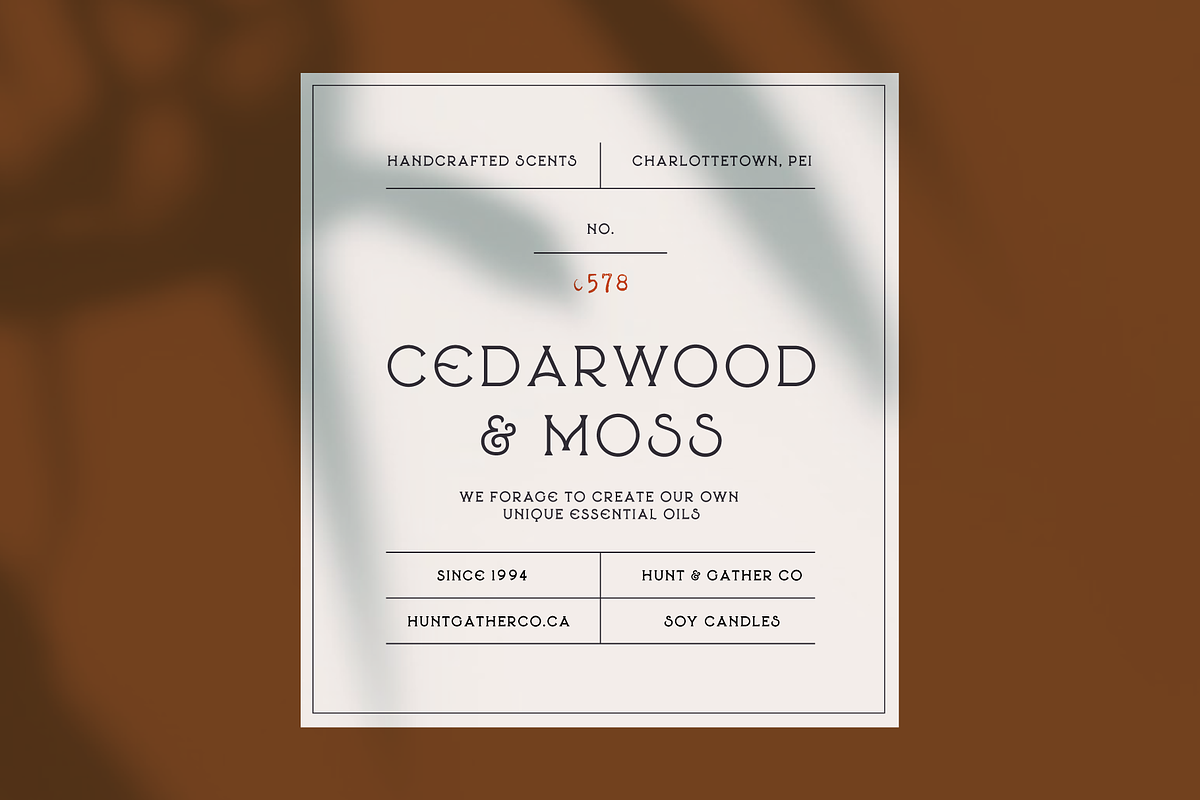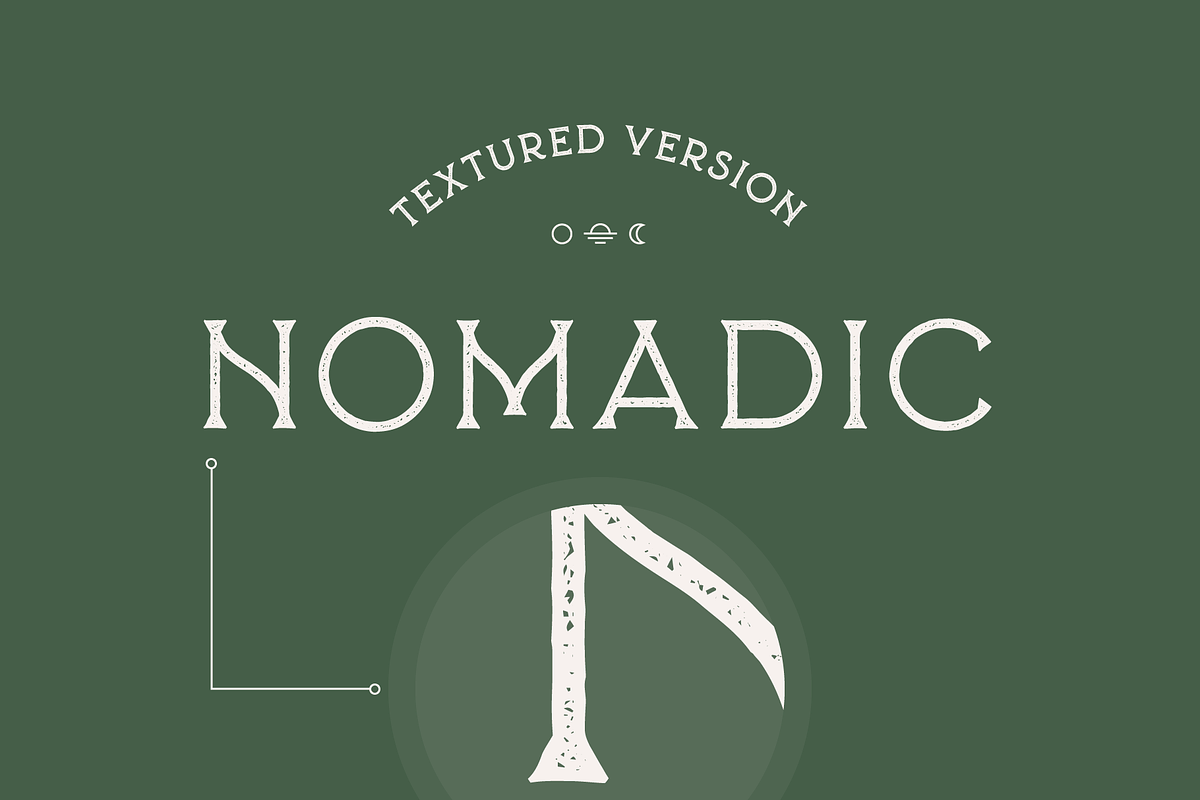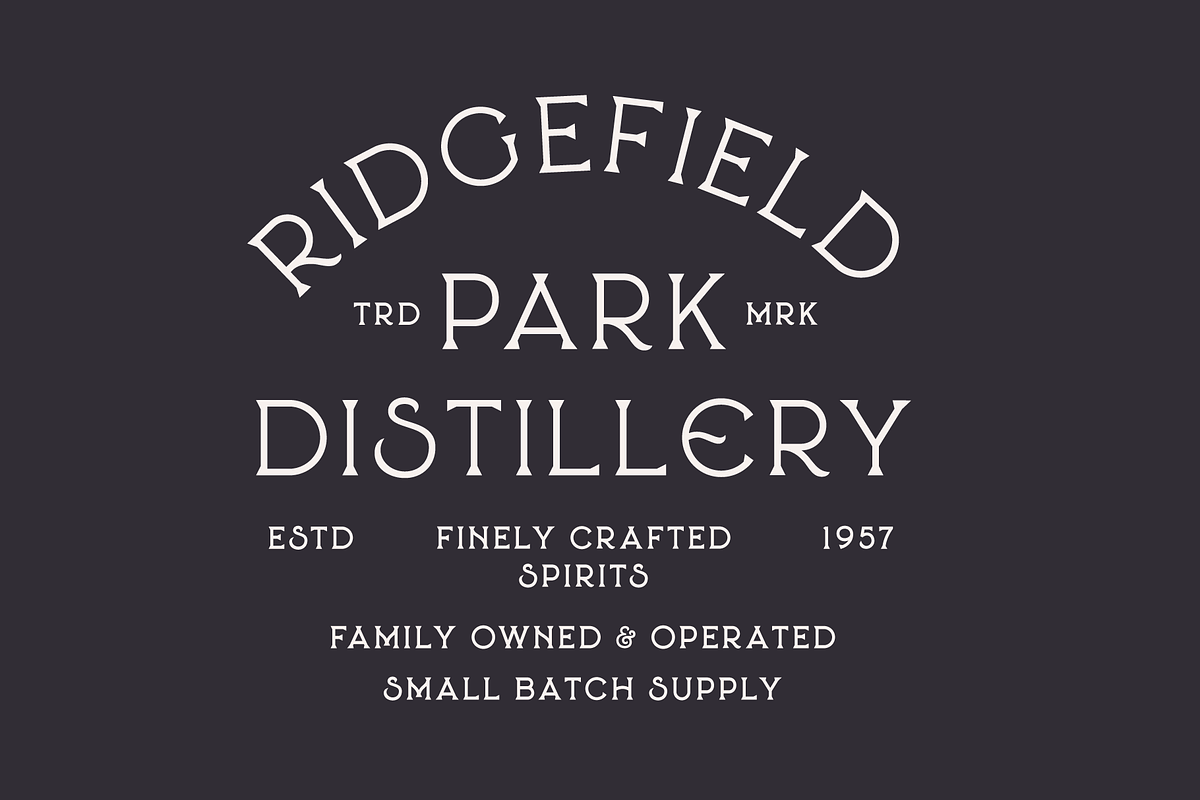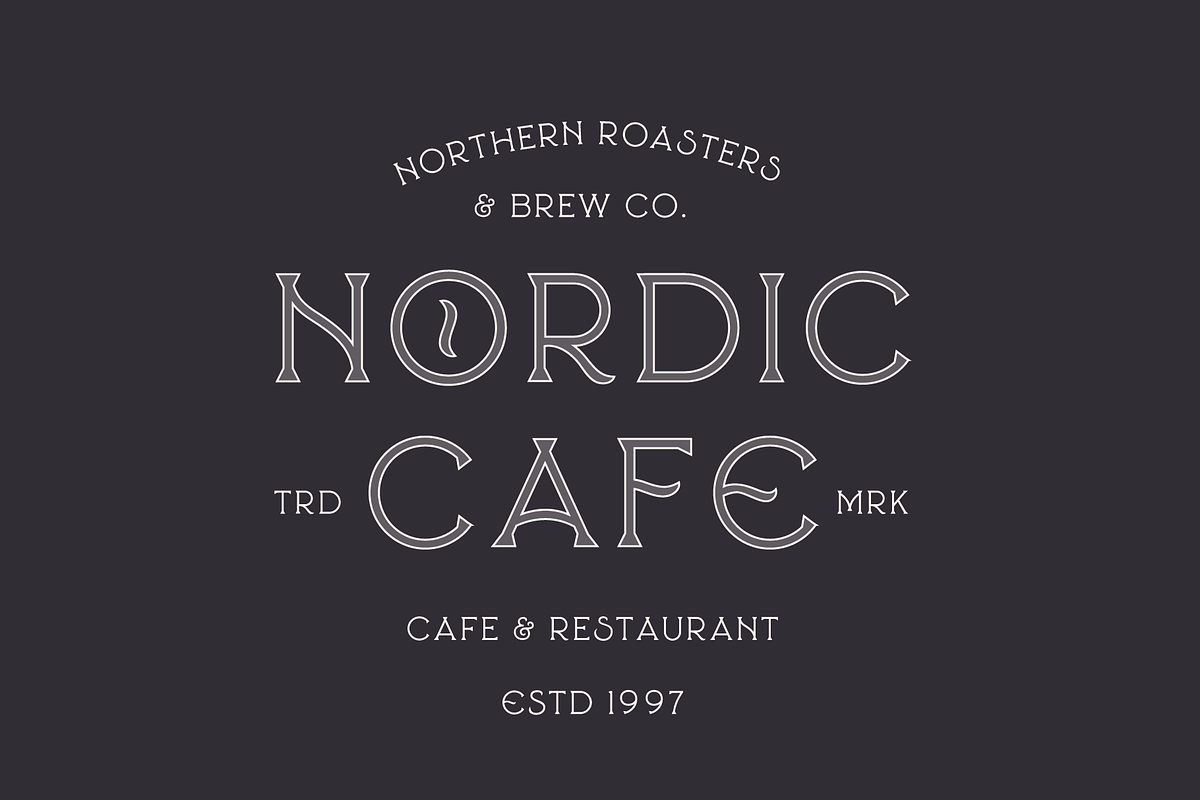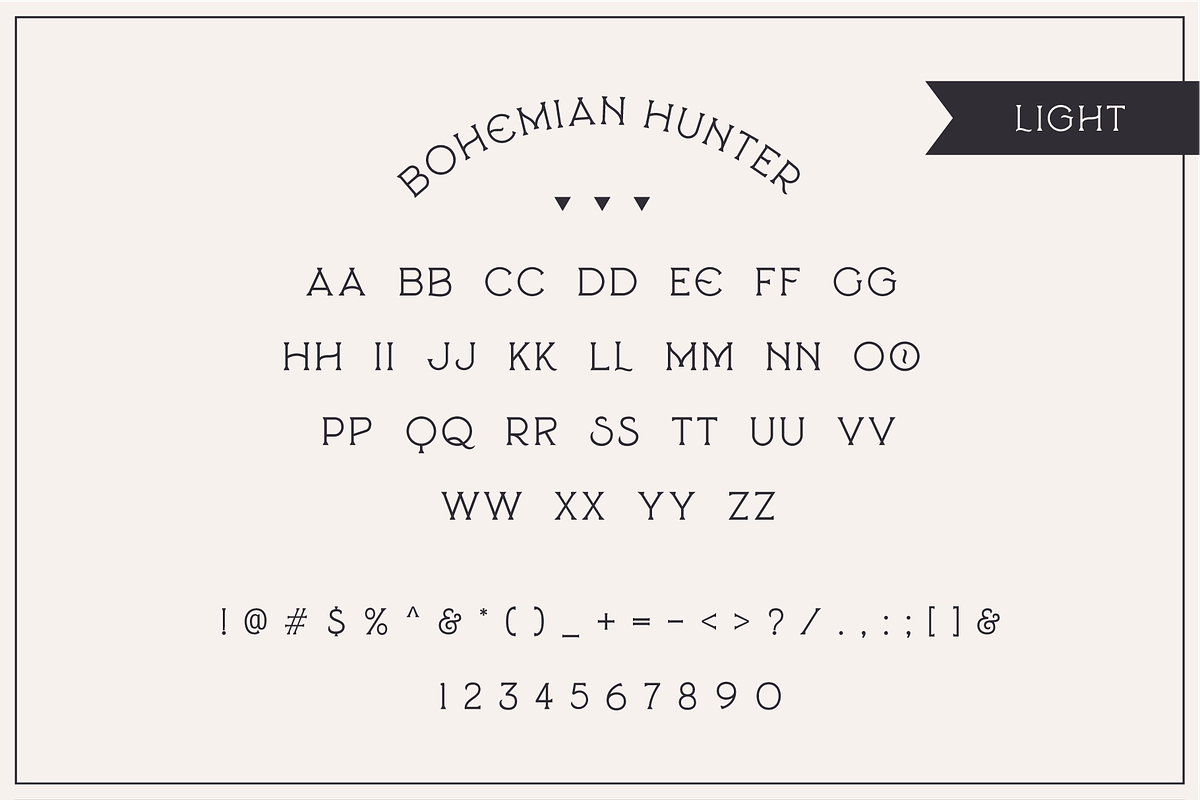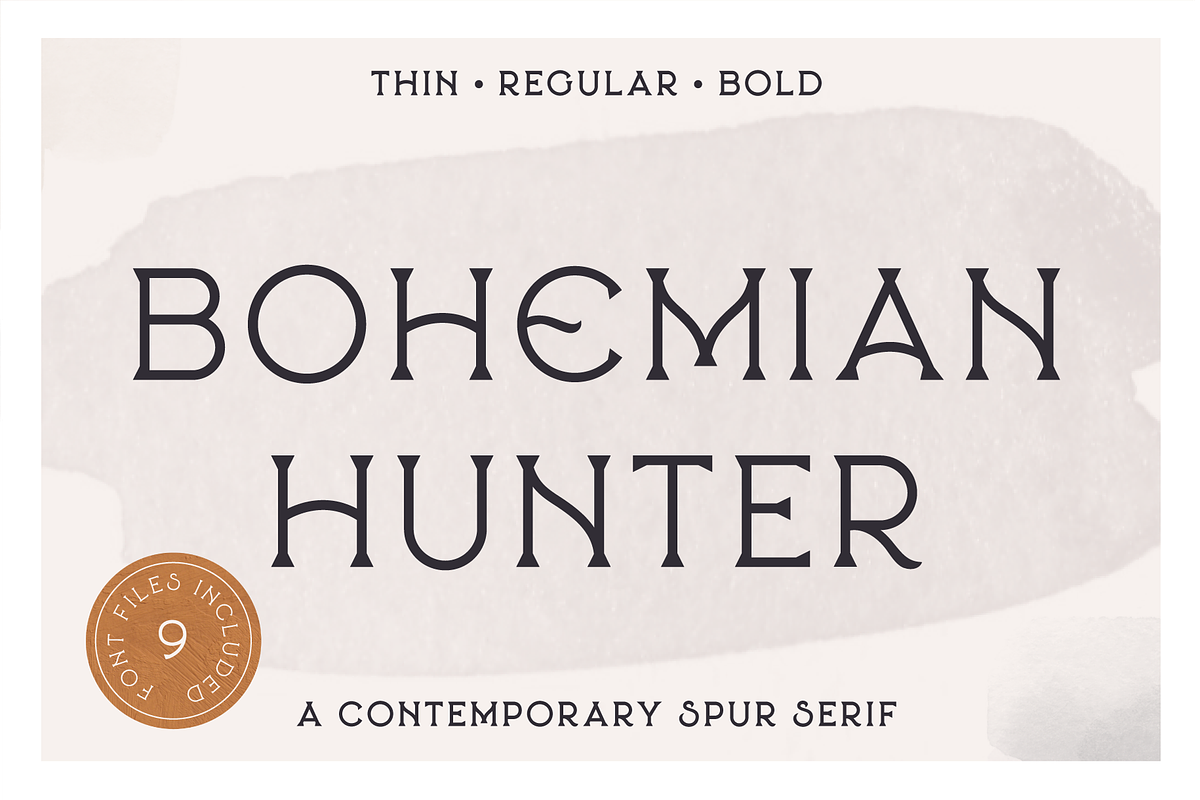
Bohemian Hunter
Bohemian Hunter is an All-Caps contemporary display / spur serif typeface. It comes packed with 9 different font files including 3 weights.
- Light, Regular, Bold
- Clean, Rough, Stamp Versions
Absolutely love this font, though I do wish the O with the squiggle was the capitalized version rather than the lowercase. I use it for my website and if something doesn't load properly I don't want people seeing my text lOOking like this, so I have my site set to all caps, losing a lot of the character of the other letters like the E. Other than that I absolutely adore it.